The Restight Script Font
The Restight Script is a beautiful brushed handwritten font. Whether you’re looking for fonts for Instagram or calligraphy scripts for DIY projects, this font will turn any creative idea into a true piece of art!
Asittany Font
Asittany is a flowing handwritten font, described by an elegant touch, perfect for your favorite projects. Fall in love with its incredibly distinct and timeless style and use it to create spectacular designs!
Inertia Font
Inertia is a simple and thin lettered display font. Modern and versatile, this font is ideal for creating logos, branding, headlines, labels and so much more.
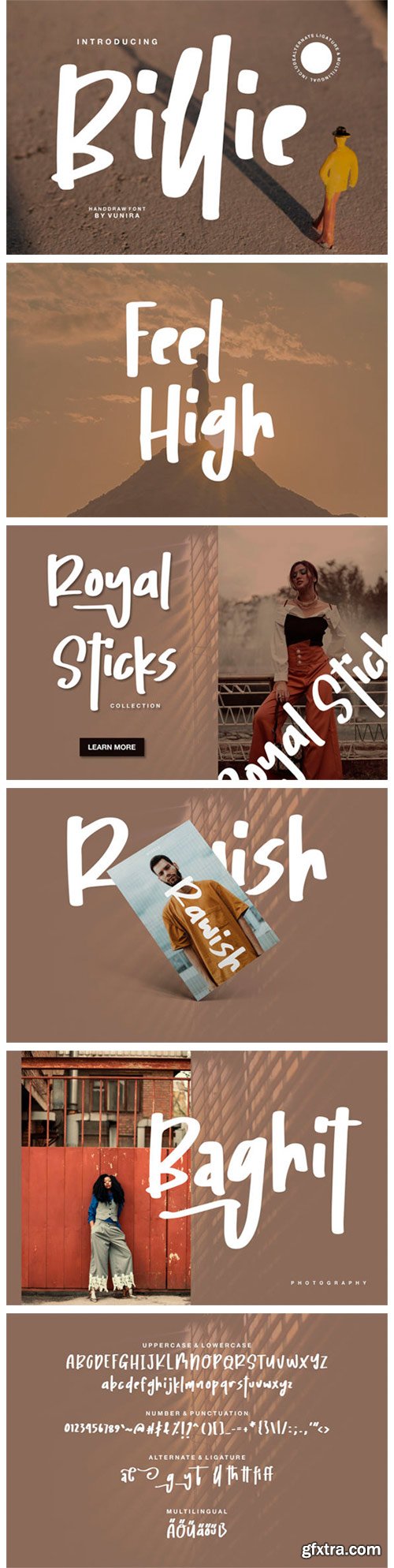
Billie Font
Billie is a sweet paint brushed display font. It is defined by smooth curves and is perfect for fashion branding or editorial designs. Add it confidently to your projects, and you won’t be disappointed.
Roliga Font
Roliga is a bold, brushed and rough textured display font. No matter the topic, this font will be an incredibly asset to your fonts’ library, as it has the potential to elevate any creation.
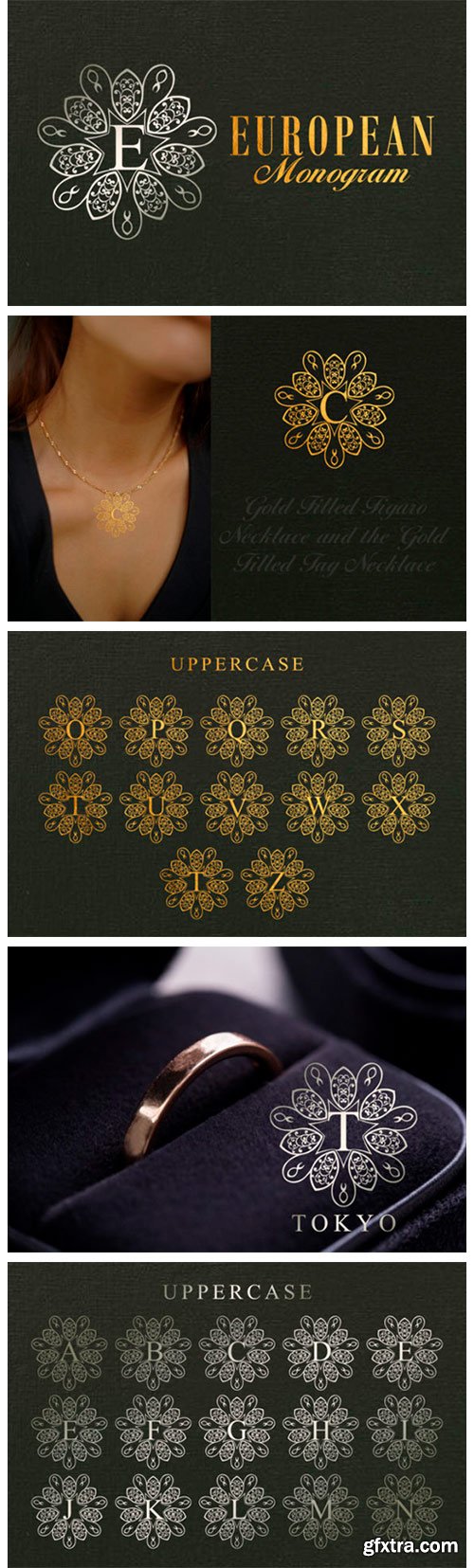
European Monogram Font
European Monogram is a beautiful decorative monogram font. It will add a romantic touch to each of your craft projects. Fall in love with its authentic feel and use it to create gorgeous wedding invitations, beautiful stationary art, eye-catching social media posts, and cute greeting cards.
Magill Font
Magill is a rough textured, brushed display font. Add it to your most creative ideas and notice how it makes them come alive!
South Amsterdam Duo Font
South Amsterdam is a lovely duo font (script and serif). It can be used for various purposes such as logos, wedding invitations, headings, t-shirts, letterhead, signage, labels, news, posters, badges and so much more. Add it to your most creative ideas and notice how it makes them come alive!
Buitenzorg Font
Buitenzorg is an imposing and authentic serif font. No matter the topic, this font will be an incredibly asset to your fonts’ library, as it has the potential to elevate any creation.
Albra Font
Albra is a bold and thick lettered serif font. Fall in love with its incredibly versatile style and use it to create gorgeous wedding invitations, beautiful stationary art, eye-catching social media posts, and much more!
Milonga Font
Milonga is a dainty and elegant handwritten font. It is distinct and stylish and it will elevate each of your designs. Fall in love with its incredibly versatile style and use it to create gorgeous wedding invitations, beautiful stationary art, eye-catching social media posts, and much more!
LaBonita Font
LaBonita is a spectacular duo font (sans serif and script). Incredibly versatile, this font fits a wide pool of designs, elevating them to the highest levels. Add this font to your favorite creative ideas and notice how it makes them come alive!
Haloha Font
Haloha is an elegant script font that will bring beauty and harmony to your designs. Whether you’re using it for crafting, digital designing, presentations or greeting cards making, it’s perfect!
Ravina Feuille Font
Ravina Feuille is a bold and assertive handwritten font. No matter the topic, this font will be an incredibly asset to your fonts’ library, as it has the potential to elevate any creation.
Blackforge Font
Blackforge is a bold and strong lettered serif font. Authentic and versatile, this font will be the ideal choice for a wide range of designs. Add it confidently to your projects, and you won’t be disappointed.
Ersita Font
Ersita is a beautiful and cute paint brushed script font. Not too thin and not too thick, balanced and varied, this font was designed to enhance the beauty of your projects.
Putri Duyung Font
Putri Duyung is a flowing handwritten font, described by an elegant touch, perfect for your favorite projects. Fall in love with its incredibly distinct and timeless style and use it to create spectacular designs! This font is PUA encoded which means you can access all of the glyphs and swashes with ease!
Ruxtoni Font
Ruxtoni is a relaxed and versatile handwritten font. No matter the topic, this font will be an incredibly asset to your fonts’ library, as it has the potential to elevate any creation.
Jewelry Monogram Font
Jewelry Monogram is a beautiful decorative font. Fall in love with its authentic feel and use it to create gorgeous wedding invitations, beautiful stationary art, eye-catching social media posts, and cute greeting cards.
The Pointtype Font
The Pointtype is an elegant and well balanced handwritten font. Fall in love with its incredibly versatile style and use it to create gorgeous wedding invitations, beautiful stationary art, eye-catching social media posts, and much more!
Cute Butterfly Monogram Font
Cute Butterfly Monogram is a beautiful script font with a romantic theme, featuring lovely, butterfly ornaments. Fall in love with its authentic feel and use it to create gorgeous wedding invitations, thank you cards, logos, business, branding, and every other design which needs a handwritten touch. This font is PUA encoded which means you can access the available glyphs and swashes with ease!